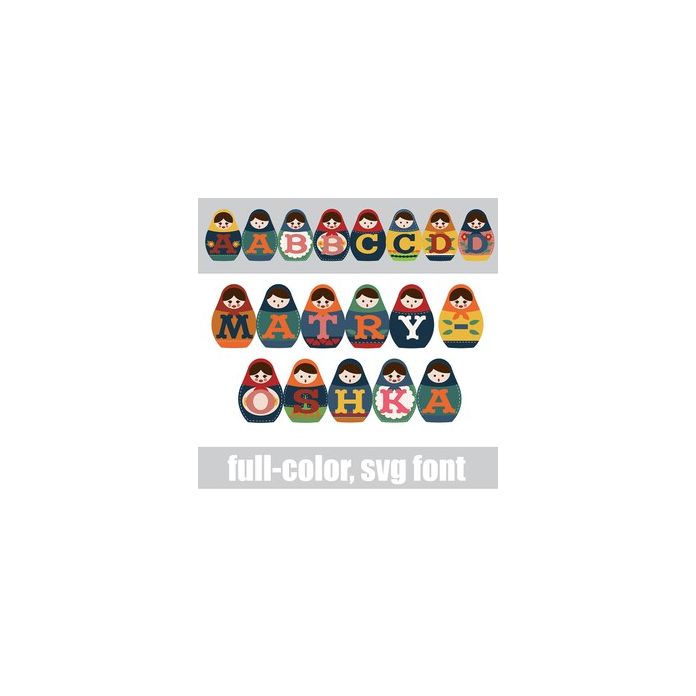
This full-color font features a matryoshka stacking doll family in an autumn-color palette. This font works best for titles, displays, posters and more. Please note color fonts will show as black in non compatible programs. This font type is compatible with Silhouette Studio.